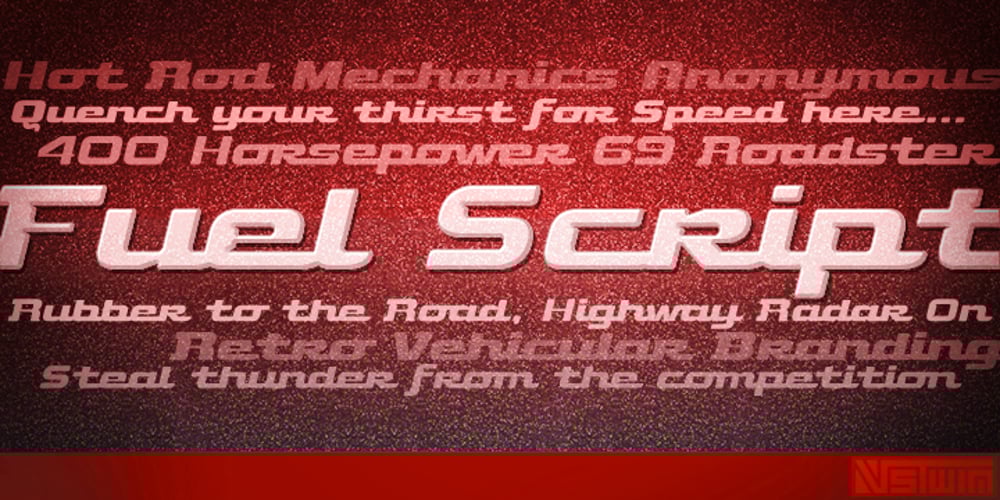
Fuel Script
Fuel Script font
Fuel Script Font Family was designed by Brian J. Bonislawsky, Brian Jaramillo and published by VersusTwin. Fuel Script contains 2 styles and family package options. The Fuel Script typefaces turn the modern update of a techno sans towards that of baseline automotive script lettering with retro stylings while retaining the same soft rounded corners and decorative inktraps. Stylistic Alternates included within all styles are alternates for the capital B, E, G, and R characters, as well as all of their accented siblings. The Fuel Complete package bundles all of the dynamic styles of the Fuel, Fuel Extended, Fuel Uni, Fuel Uni Extended, and Fuel Script typefaces into one powerhouse of a collection.